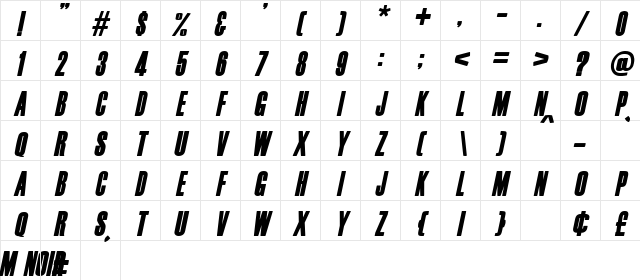
Film Noir Italic Free Font
Film Noir Italic
Design Context for Film Noir
Film Noir is a composed and adaptable typeface that performs quietly and consistently across a wide range of design contexts. The slanted form adds forward momentum and visual energy.